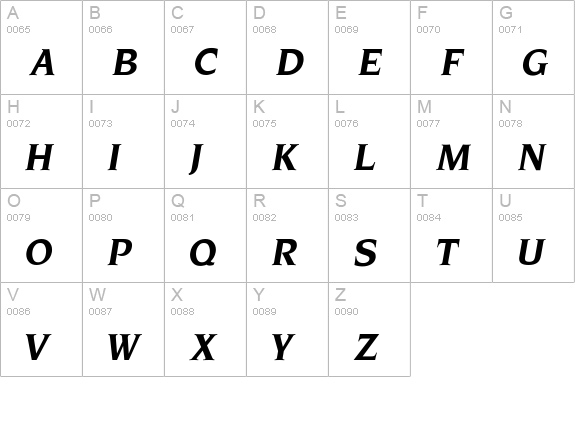
Neuvarese-BoldI Font Details
Neuvarese-BoldI font is a modern and stylish typeface that exudes confidence and sophistication. Its bold and striking design makes it perfect for headlines, titles, and any text that needs to make a statement. The sharp edges and clean lines of Neuvarese-BoldI font give it a contemporary feel that is both sleek and professional. What's even better is that Neuvarese-BoldI font is available for free download at FontsMarket.com. This means you can easily access this high-quality font without any cost, making it a great choice for designers, bloggers, and anyone looking to enhance their projects with a touch of elegance and flair. Don't miss out on the opportunity to add Neuvarese-BoldI font to your font collection today and elevate your designs to the next level!